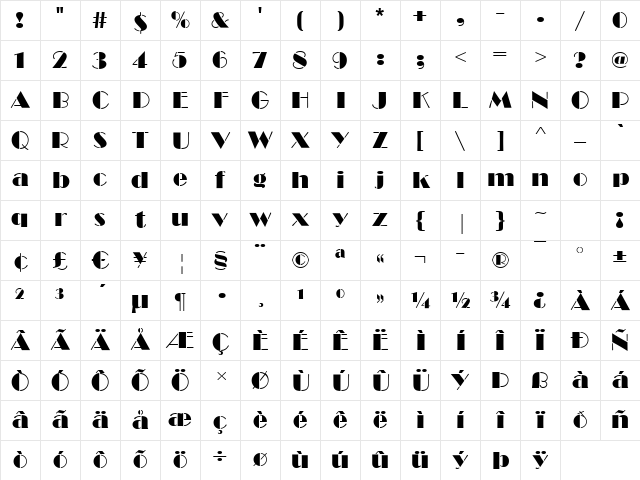
Broadway-Stencil Regular Free Font
Broadway-Stencil Regular
Design Context for Broadway-Stencil
Broadway-Stencil borrows the utilitarian aesthetic of stencil lettering, with its characteristic cutaways and no-frills construction lending an industrial edge.
Pro Tip: Use Broadway-Stencil at large sizes on packaging, posters, or apparel where the stencil cutaways read clearly. Avoid small sizes where those gaps become visual noise.